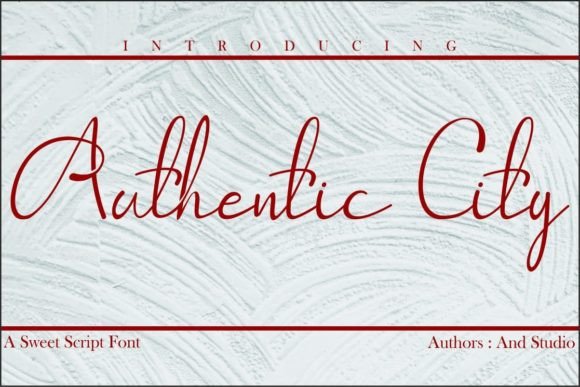
The Quest for the Perfect Font: Discovering Authentic City
I still remember the design project that led me to Authentic City. I was working on a luxury branding campaign for a high-end fashion client, and I was determined to find the perfect font to capture their sophisticated and elegant vibe. After hours of scrolling through font libraries and testing out different options, I stumbled upon Authentic City – a sweet and beautiful modern script font that instantly caught my eye. Its characters danced along a baseline, exuding a sense of luxury and refinement that perfectly matched my client’s brand aesthetic.
An Honest Review of Authentic City
• ✨ Elegant and refined design that’s perfect for luxury branding and high-end designs
• ✅ Beautifully crafted characters that dance along a baseline, adding a touch of sophistication to any design
• 💫 Highly versatile and can be used for a wide range of design projects, from logos and branding to packaging and advertising
• 📚 Includes a range of OpenType features, glyphs, and stylistic alternates that allow for endless customization options
While Authentic City is an amazing font, there are a few things to keep in mind 🤔:
• ⚠️ Some characters may not work well at very small font sizes, so it’s best to use it at larger sizes (24pt or above)
• ⚠️ The font’s script style may not be suitable for very formal or traditional designs, so use it judiciously
The Designer Inspiration Behind Authentic City
Authentic City was designed with the goal of creating a luxurious and elegant script font that would add a touch of sophistication to any design. The font’s creator was inspired by the beauty of handwritten scripts and the elegance of luxury branding. The result is a font that’s both refined and beautiful, with a unique sense of personality that’s sure to make your designs stand out.
Q: What is Authentic City?
A: Authentic City is a sweet and beautiful modern script font featuring characters that dance along a baseline.
Q: What can I use Authentic City for?
A: Authentic City is highly versatile and can be used for a wide range of design projects, from logos and branding to packaging and advertising.
Q: Does Authentic City include OpenType features and glyphs?
A: Yes, Authentic City includes a range of OpenType features, glyphs, and stylistic alternates that allow for endless customization options.